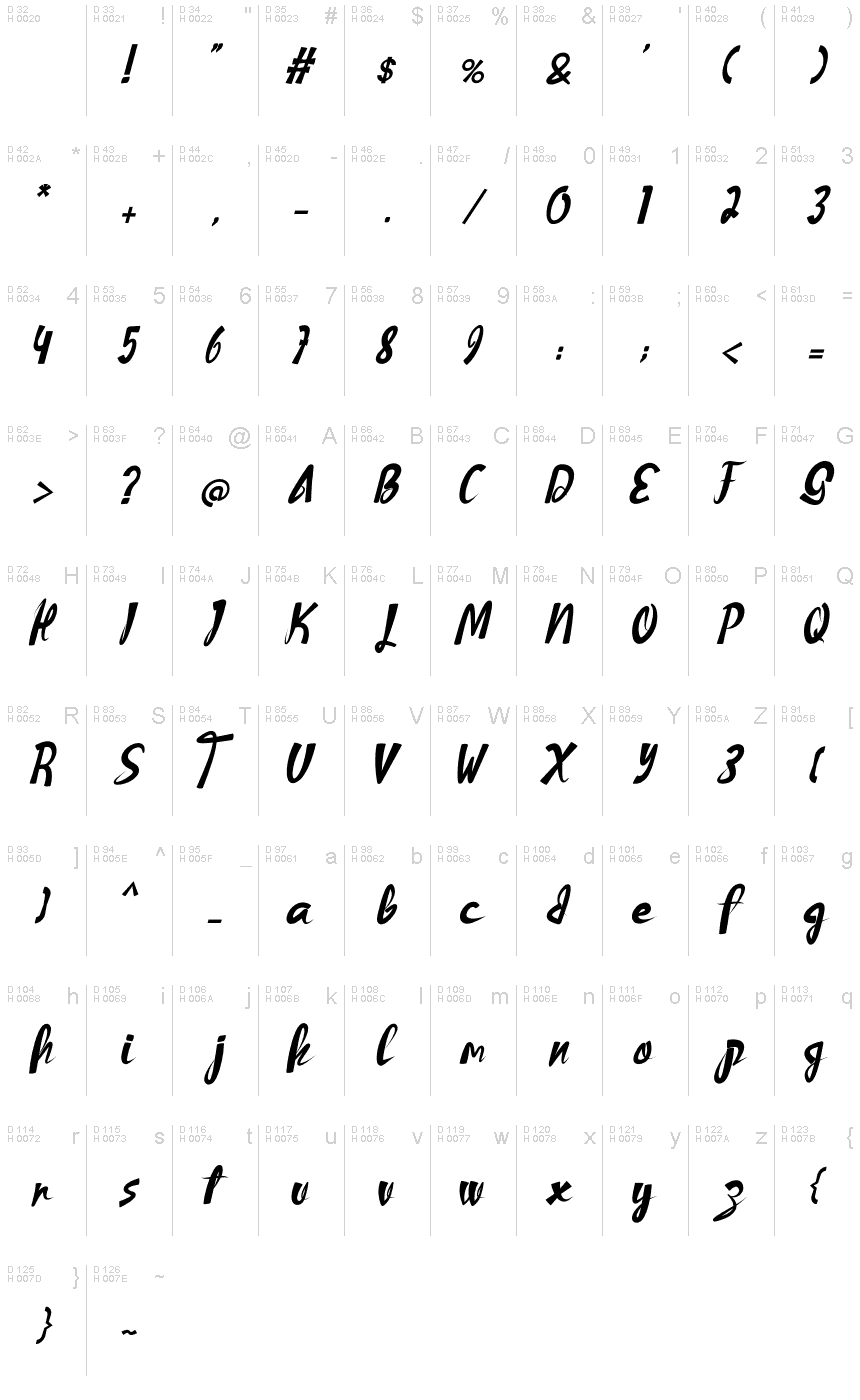
Write The Words Italic
Write The Words Italic is a striking typeface designed by Design Vector10. Its elegant script style lends itself perfectly to a wide range of projects, from branding and advertising to wedding invitations and greeting cards. With its flowing lines and graceful curves, this semi-bold font adds a touch of sophistication to any design. Whether you're creating a new logo or designing a website, Write The Words Italic is the perfect choice for anyone looking for an eye-catching font that stands out from the crowd. So why wait? Download Write The Words Italic today and start creating stunning designs that will leave your audience speechless!